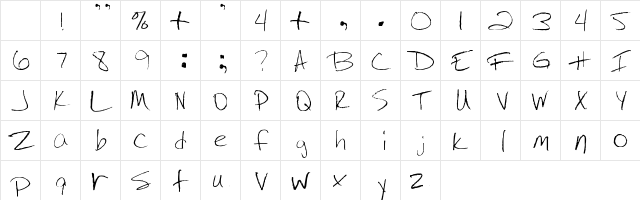
Complete Jenny's Handwriting Regular glyph index. Displaying only characters natively supported by Jenny's Handwriting Regular font.
Jenny's Handwriting flows with the natural rhythm of handwritten lettering, making it ideal for designs that call for warmth and personal expression.
Font Pairing: Combine Jenny's Handwriting with a simple geometric sans for maximum contrast - the tension between flowing curves and clean structure is a classic typographic pairing.
Pro Tip: Use Jenny's Handwriting for short runs of text - names, titles, or taglines. Extended body copy in script faces tires the eye quickly.